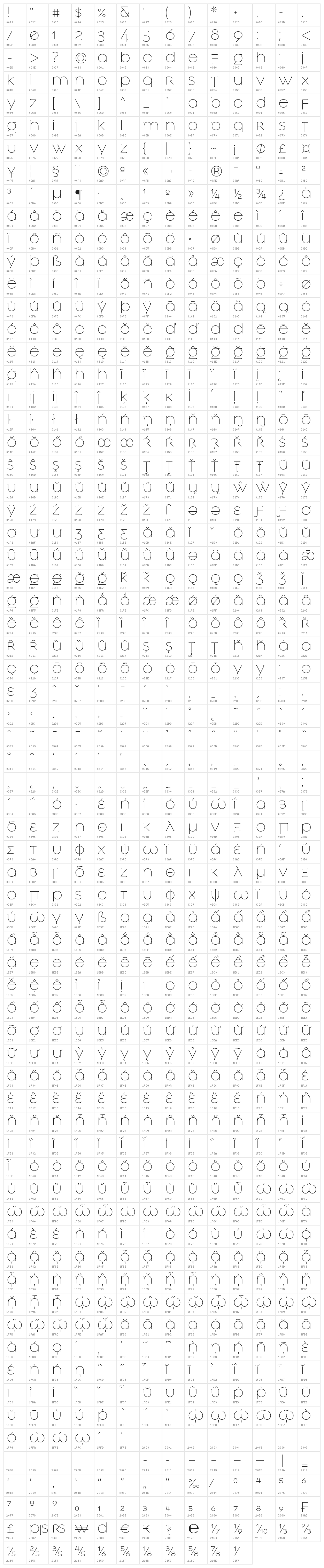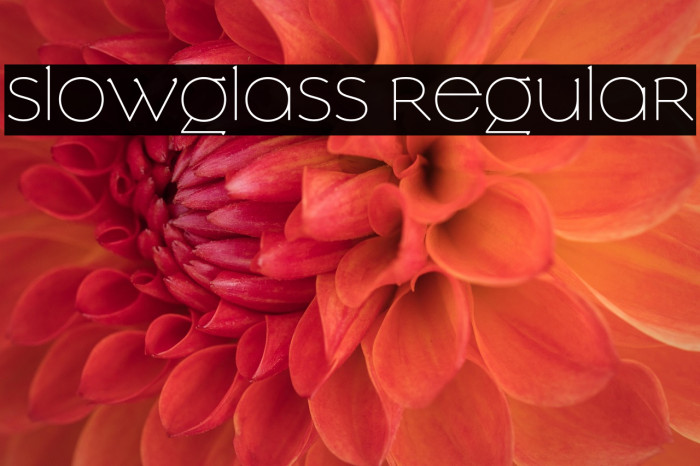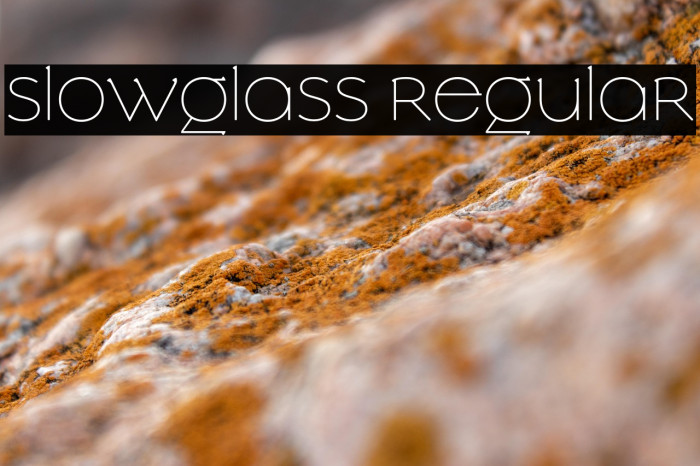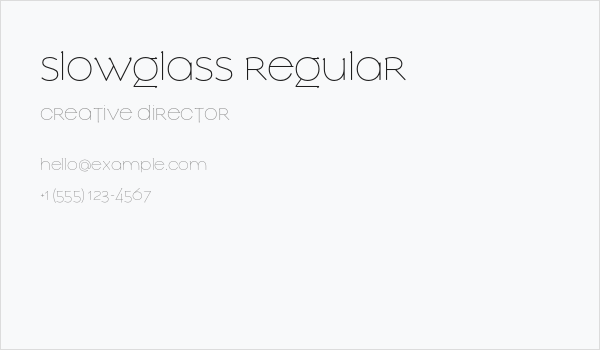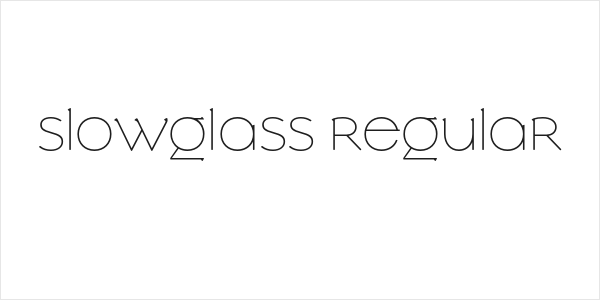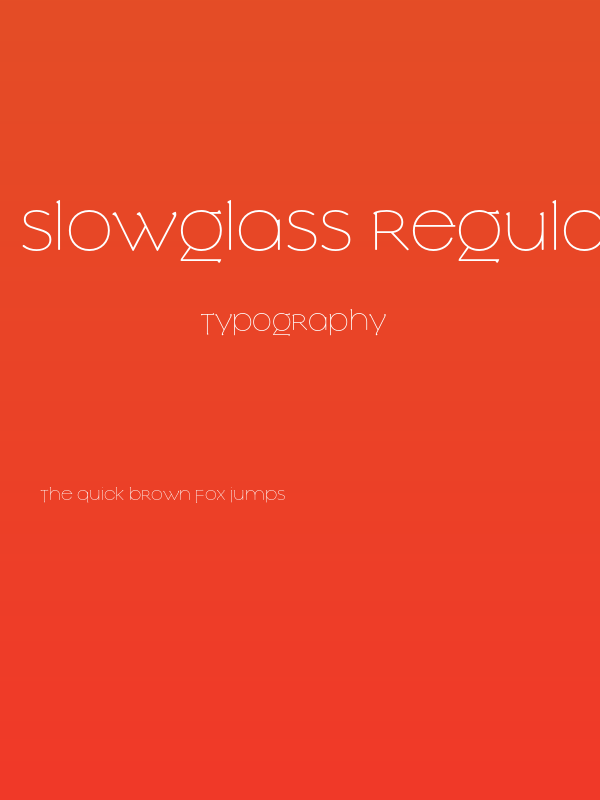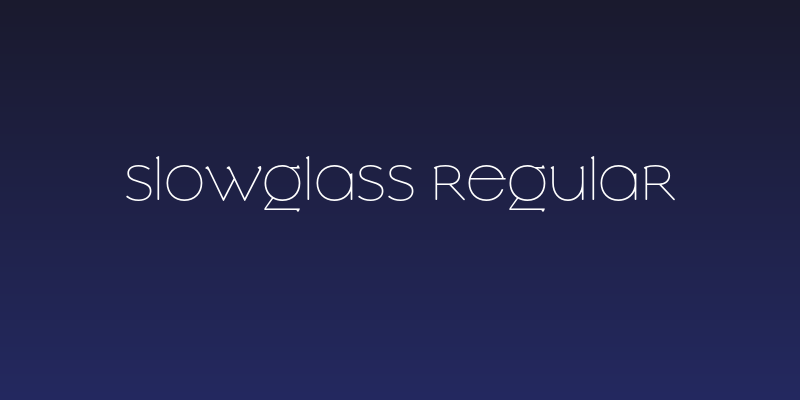
Slowglass Regular Font
Slowglass Regular Description
This font features a sleek, modern design with a geometric and minimalist aesthetic. The characters are composed of clean, thin lines with a consistent stroke width, giving it a uniform appearance. The uppercase and lowercase letters maintain a similar height, contributing to a balanced and harmonious look. The font includes unique elements, such as the distinctive design of the 'G' and 'Q', which add a touch of creativity. The numerals and special characters are designed to match the overall style, ensuring a cohesive appearance across all text. This font is ideal for projects that require a contemporary and stylish look.
| Use Case | Headlines, Logos, Digital Media |
| Proposed Projects | Ideal for branding, advertising, digital media, and modern web design projects. |